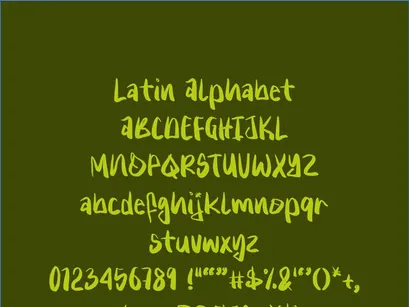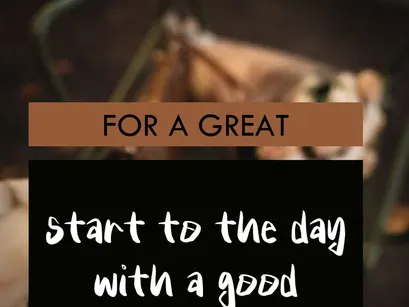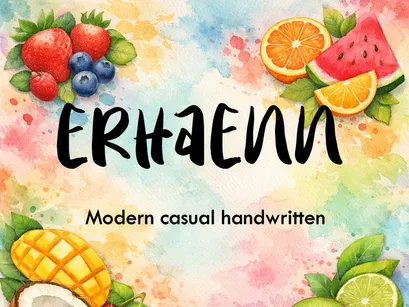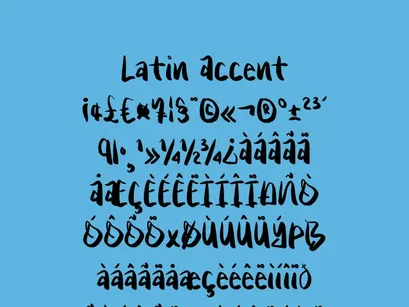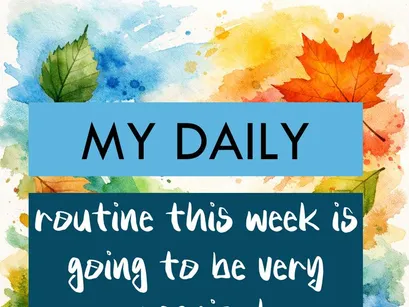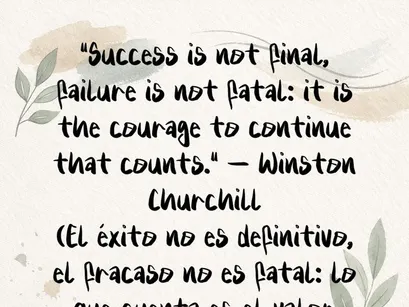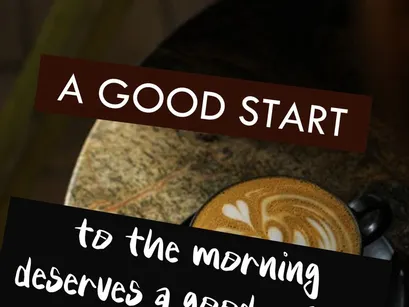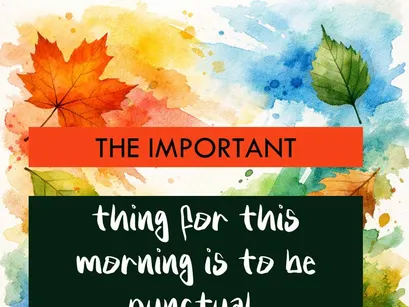
ERHAENN – Modern Casual Handwritten Font
ERHAENN
Discover ERHAENN, a modern, casual handwritten typeface crafted with natural strokes and a fluid rhythm. Its style blends spontaneity with readability, making it perfect for projects that aim to convey warmth, creativity, and authenticity.
It includes a full set of Latin characters, accents, and symbols, and is compatible with Windows, Mac, and design software. Ideal for planners, inspirational quotes, artisanal packaging, and emotional branding.